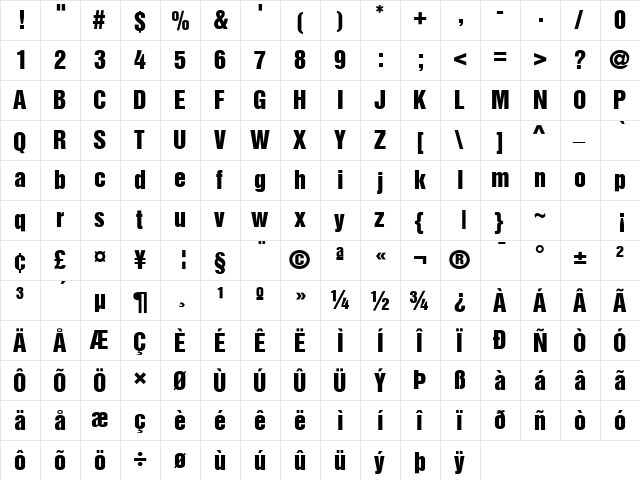
Sans Inserat Regular
Design Context for Sans Inserat Typeface
Sans Inserat is a composed and adaptable typeface that performs quietly and consistently across a wide range of design contexts.